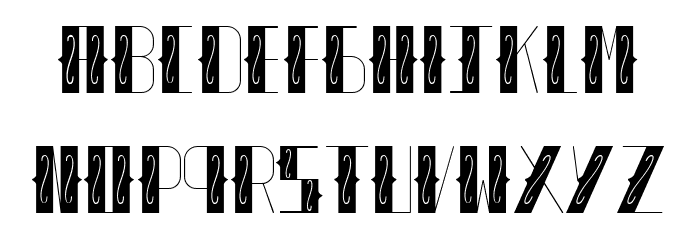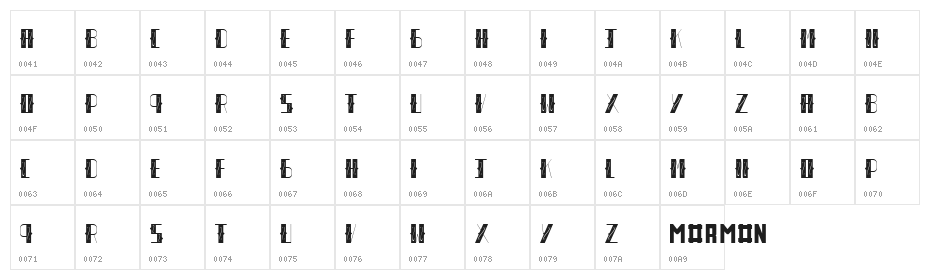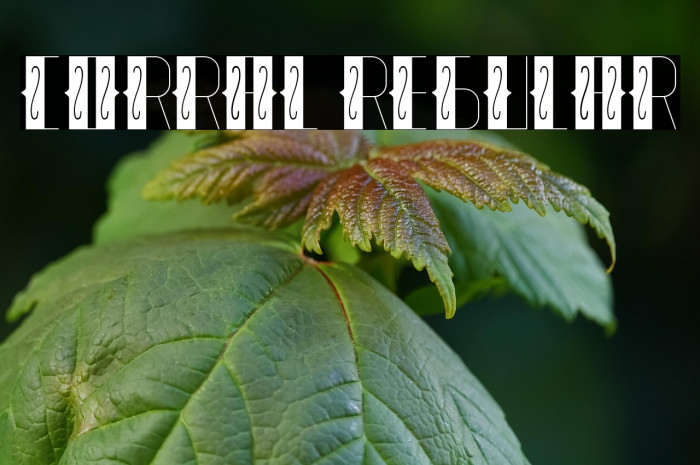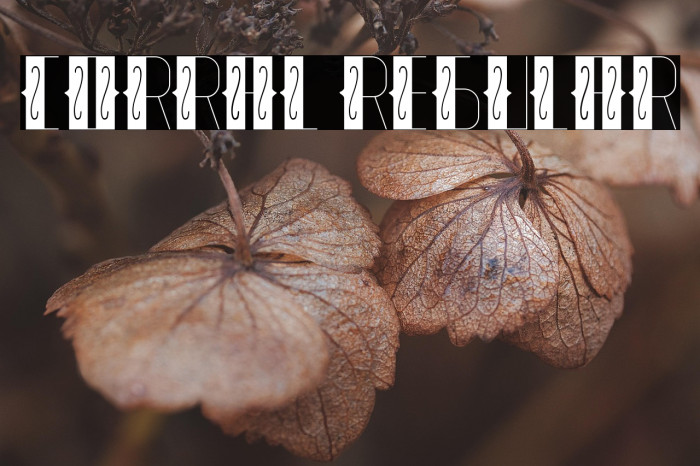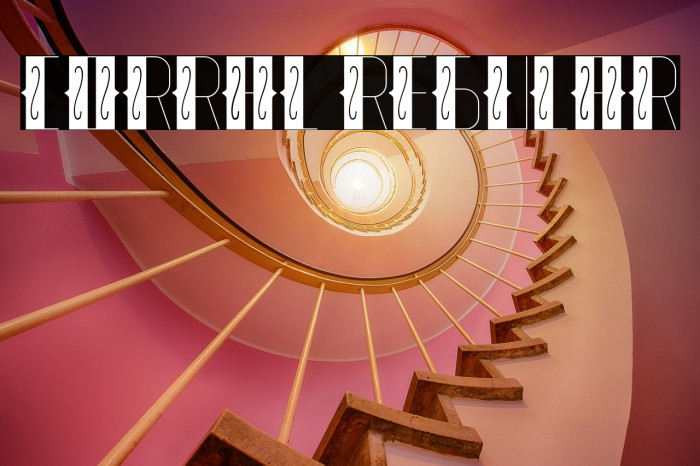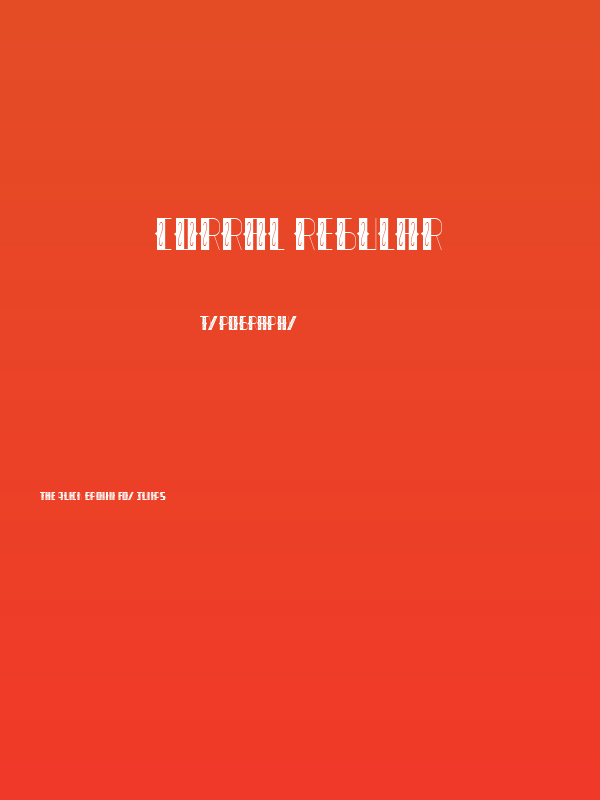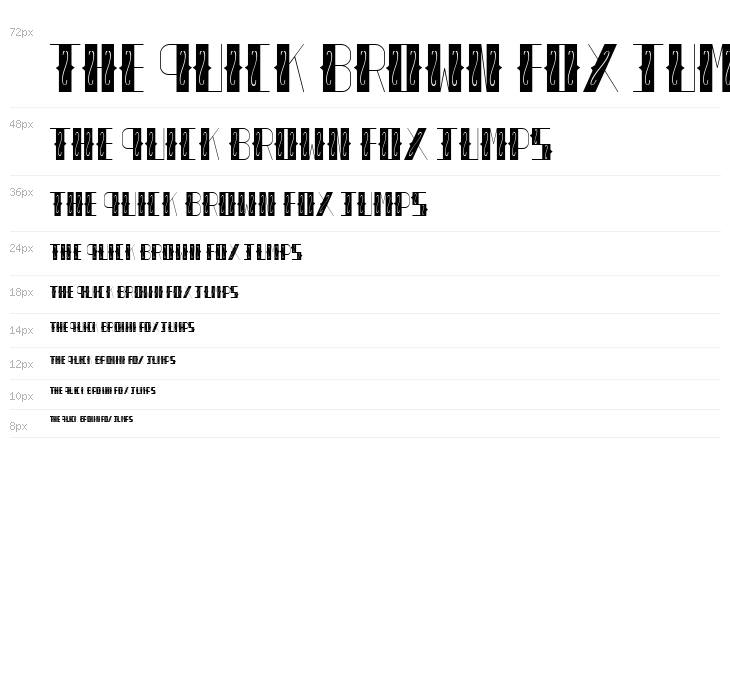
Corral Regular Font
Corral Regular Description
This font features a unique and artistic design, combining bold, block-like shapes with intricate, swirling details inside each character. The contrast between the solid black backgrounds and the delicate white lines creates a striking visual effect. Each letter is enclosed within a rectangular form, giving it a structured appearance, while the internal curves add a sense of movement and elegance. The font maintains a consistent height across all characters, ensuring uniformity, but the internal designs vary, adding an element of surprise and creativity. This font is ideal for projects that require a bold statement with a touch of sophistication.